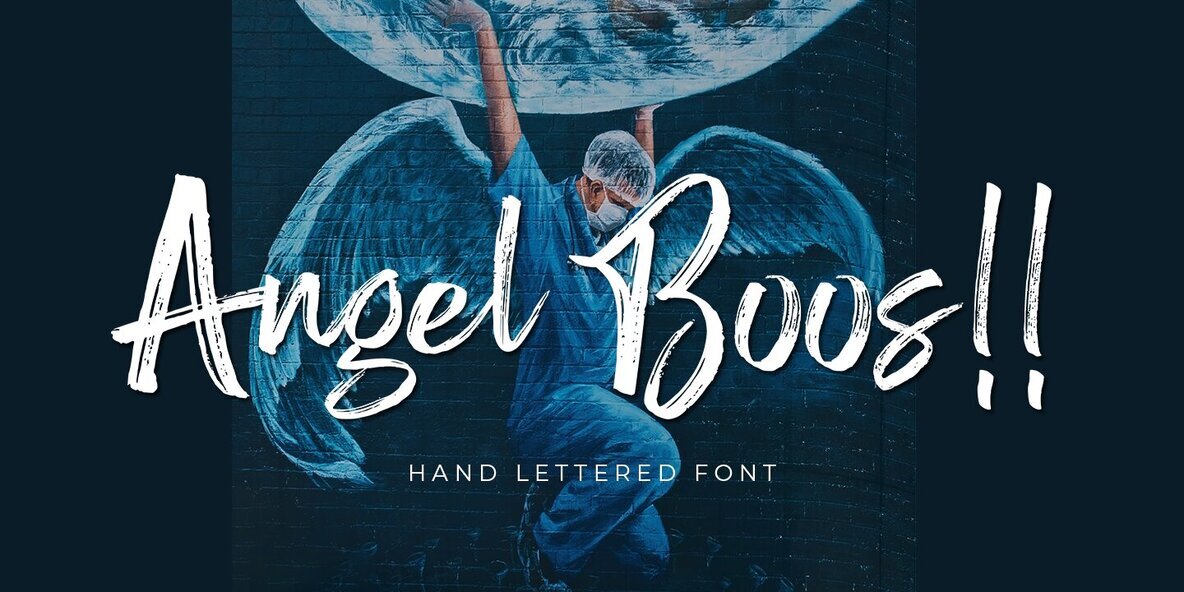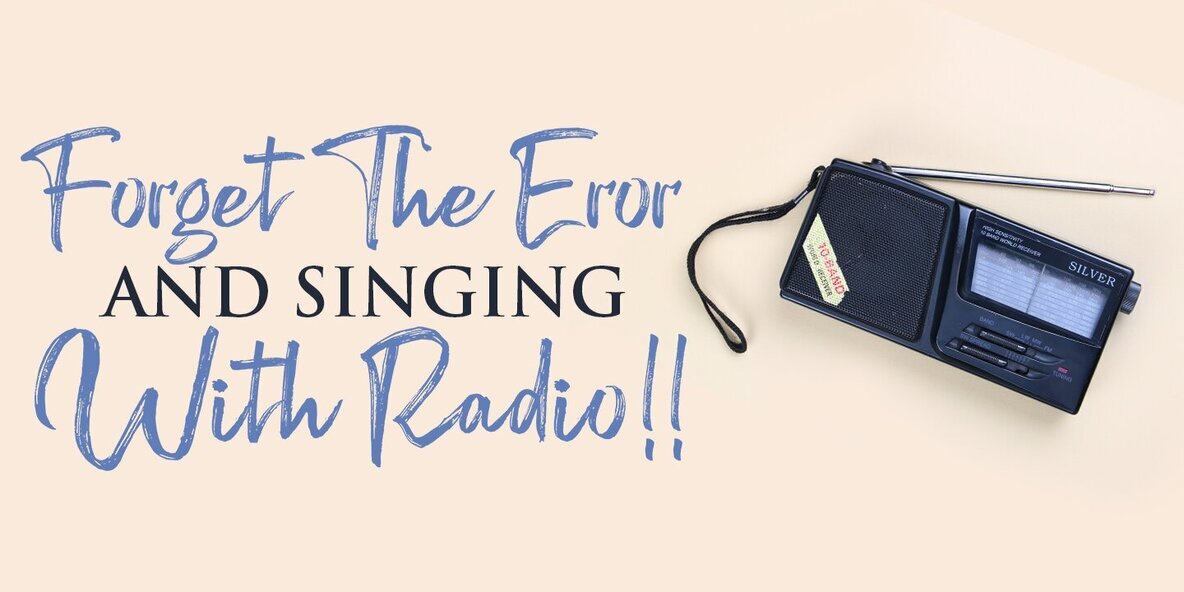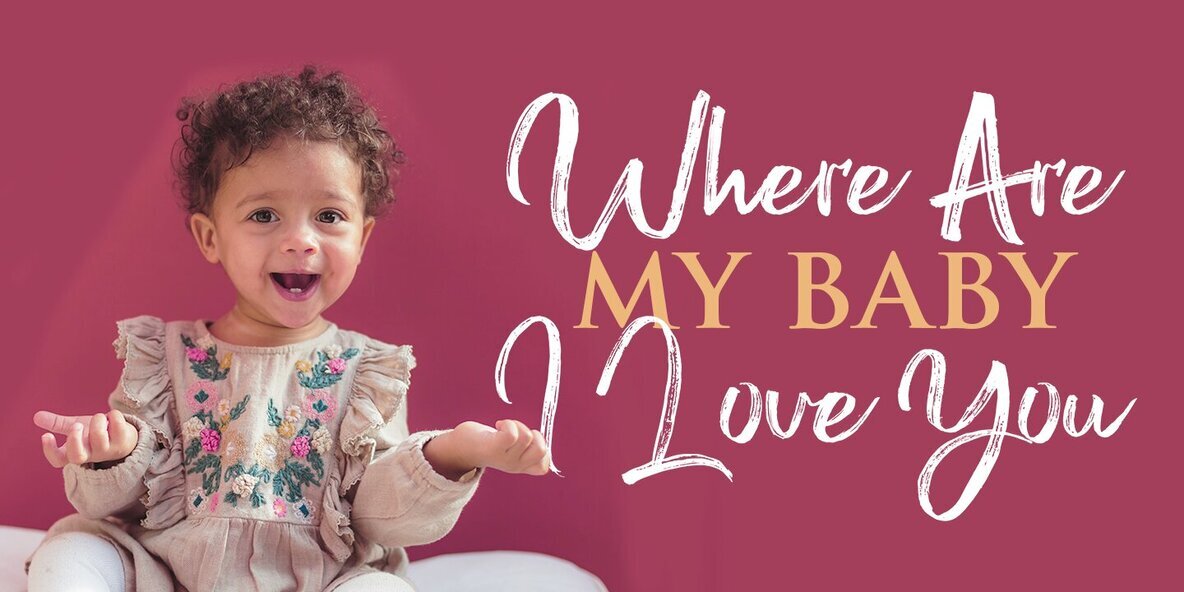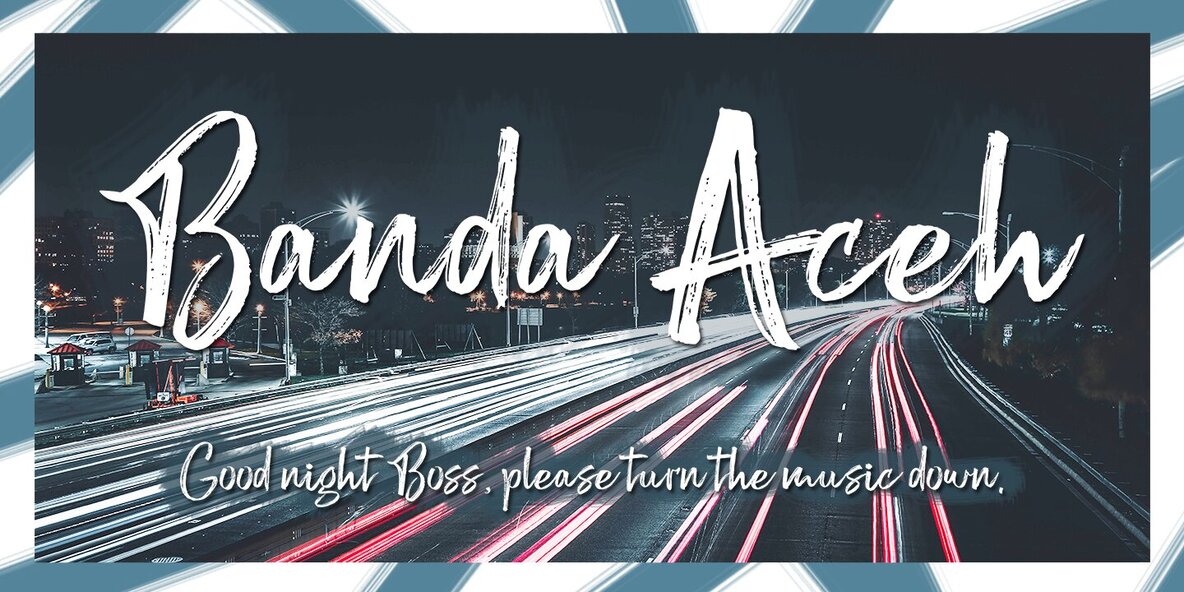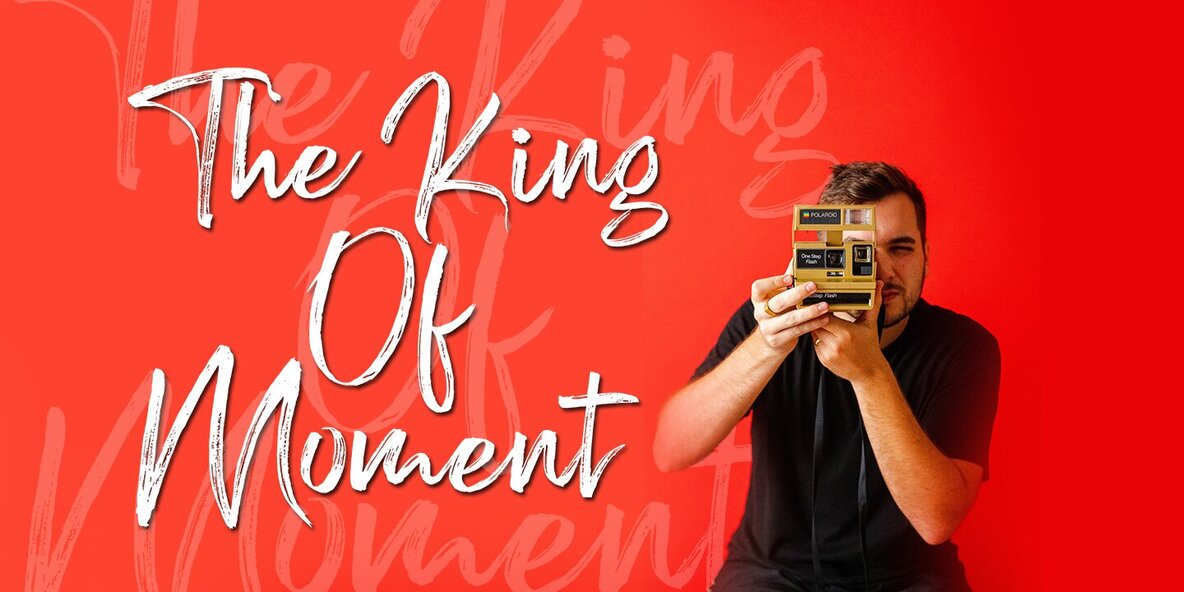
Angel Boos Font
Angel Boos
Angel Boos is a captivating handwritten font that stands out with its unique character and charm. Featuring over 200 extravagant glyphs, this font adds a distinctive flair to any project, setting itself apart with its creative style. Perfect for a multitude of applications, Angel Boos seamlessly adapts to logos, product packaging, and wedding invitations. It enhances branding with its playful yet elegant strokes, making it ideal for headlines, signage, labels, and more. Whether crafting signatures, book covers, or eye-catching posters, Angel Boos brings a touch of whimsy and personality to every use.Angel Boos: Quirky Handwritten Delight